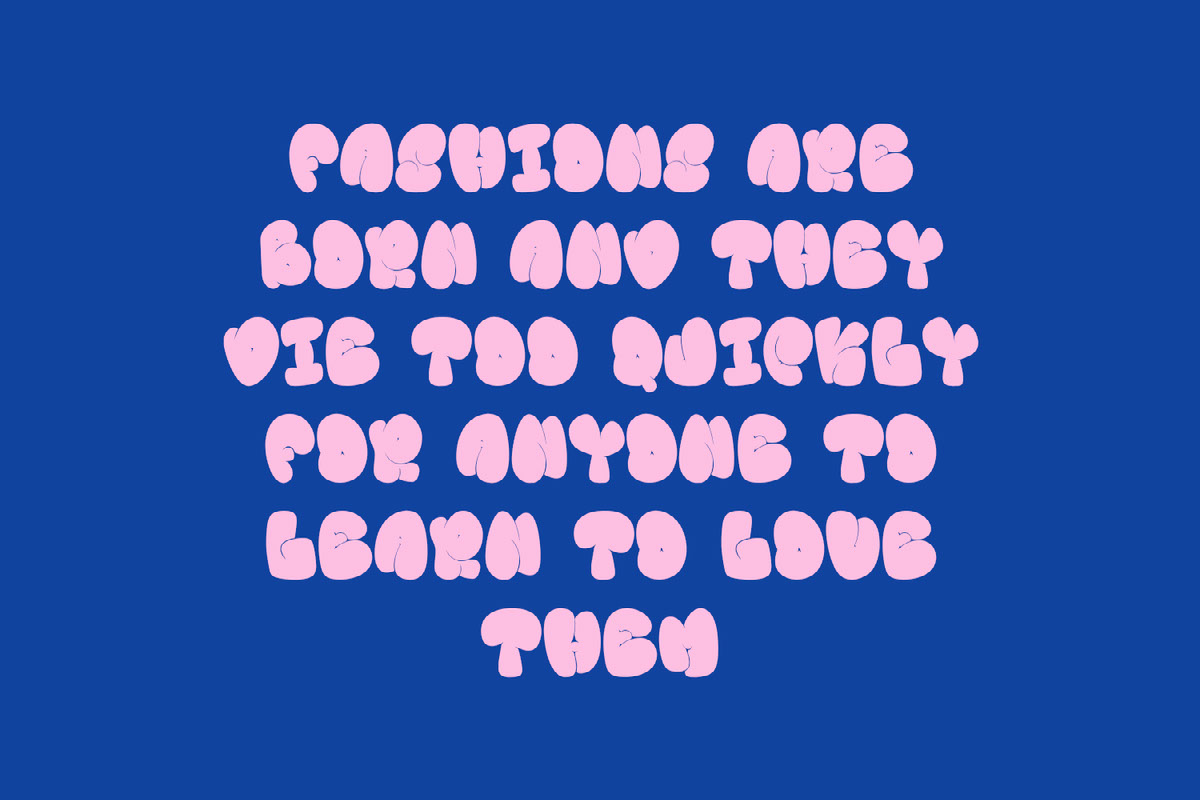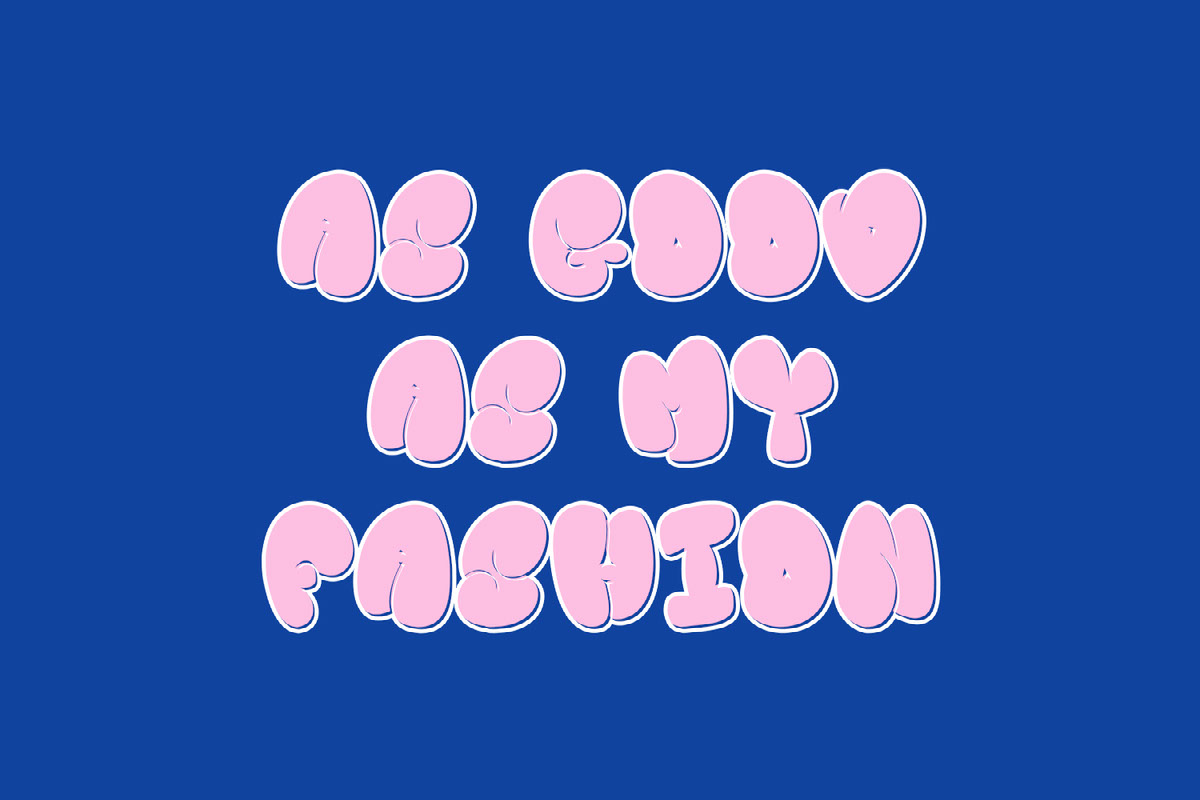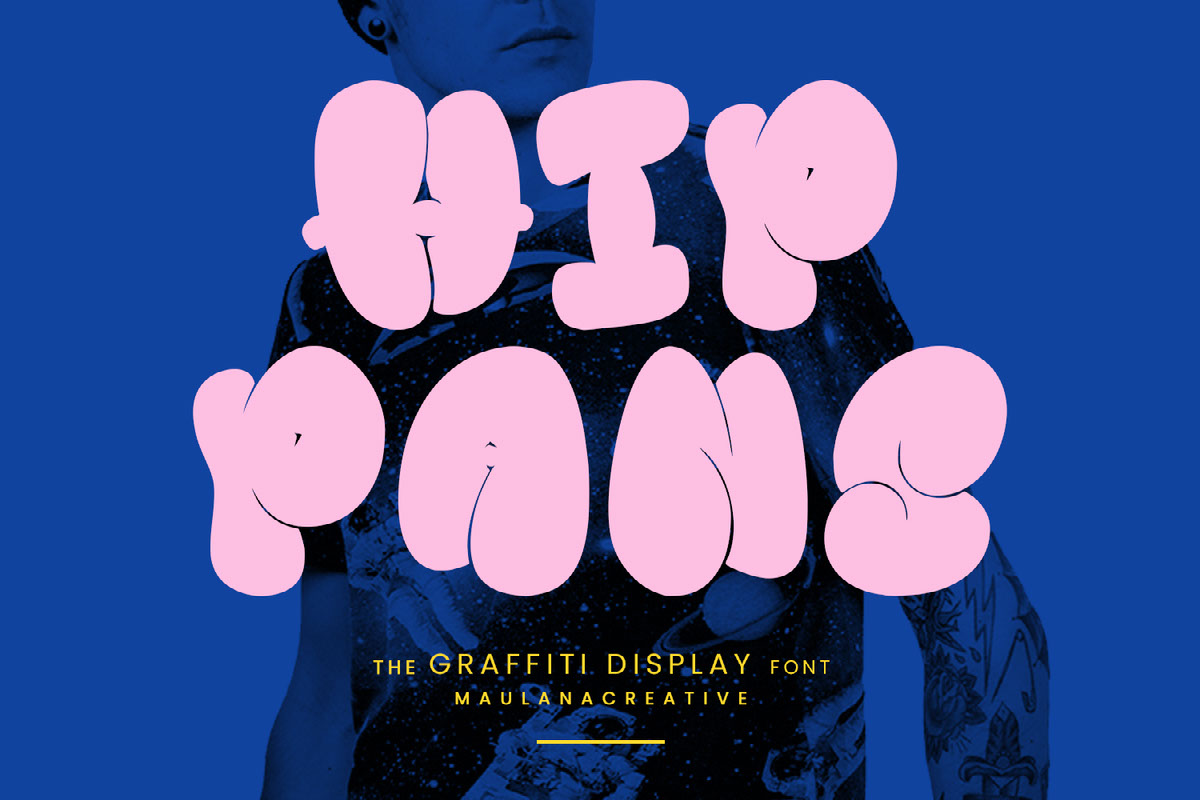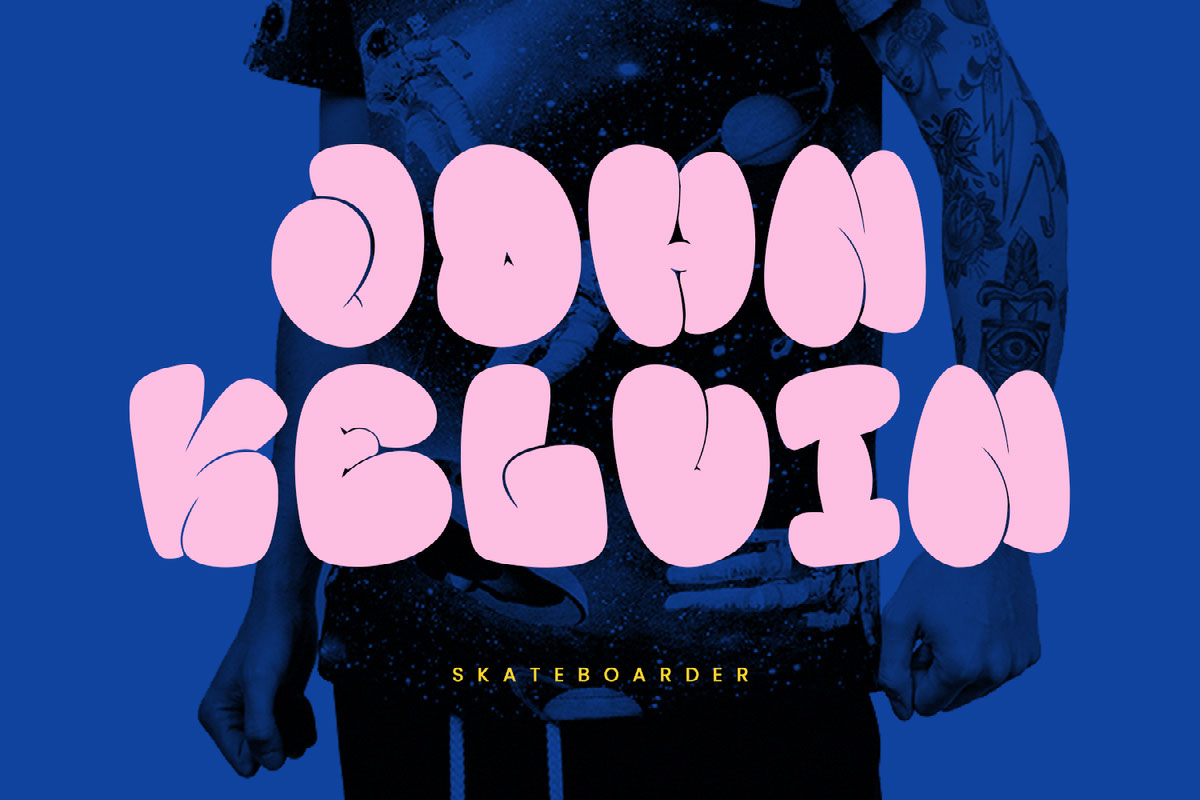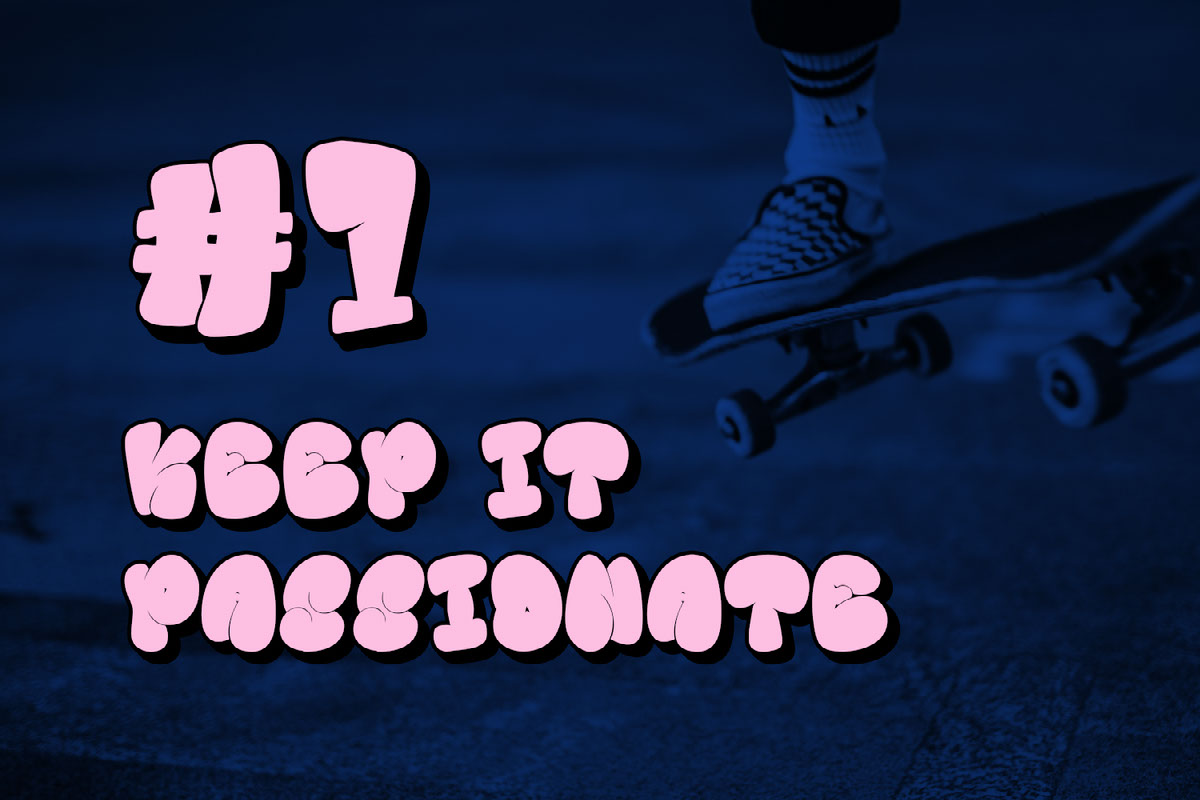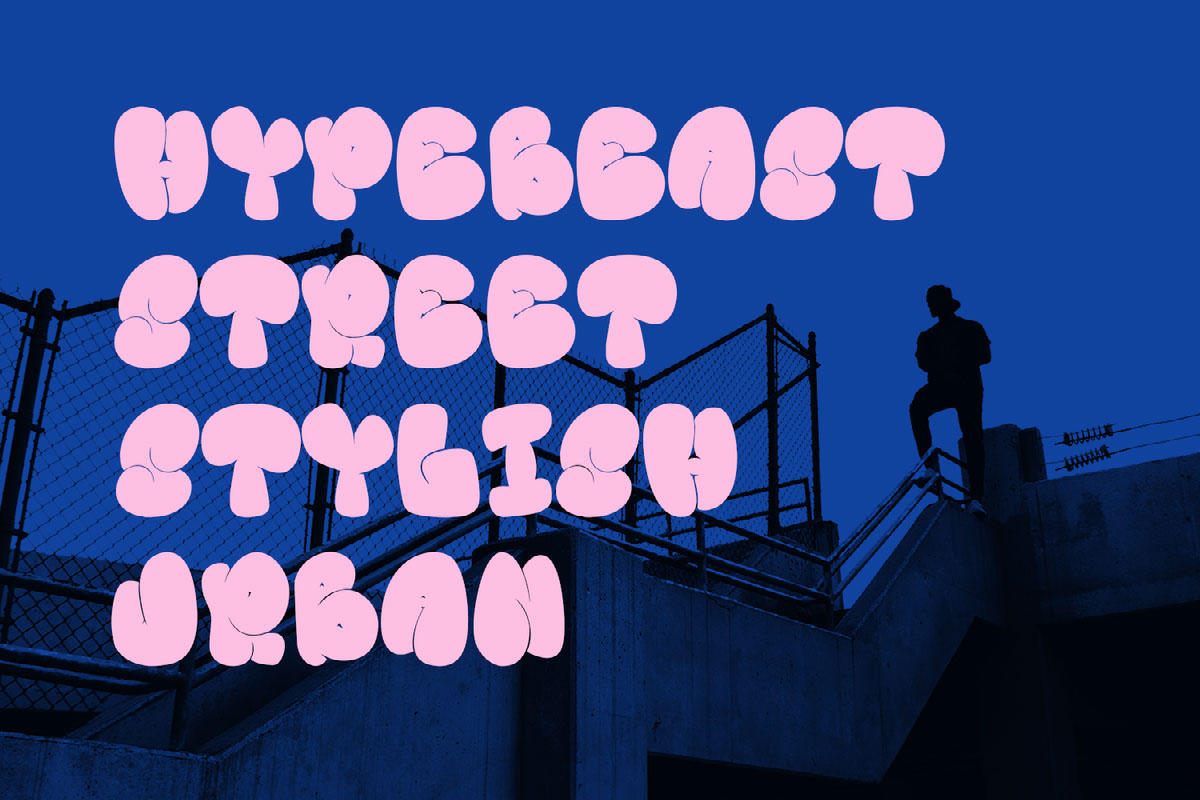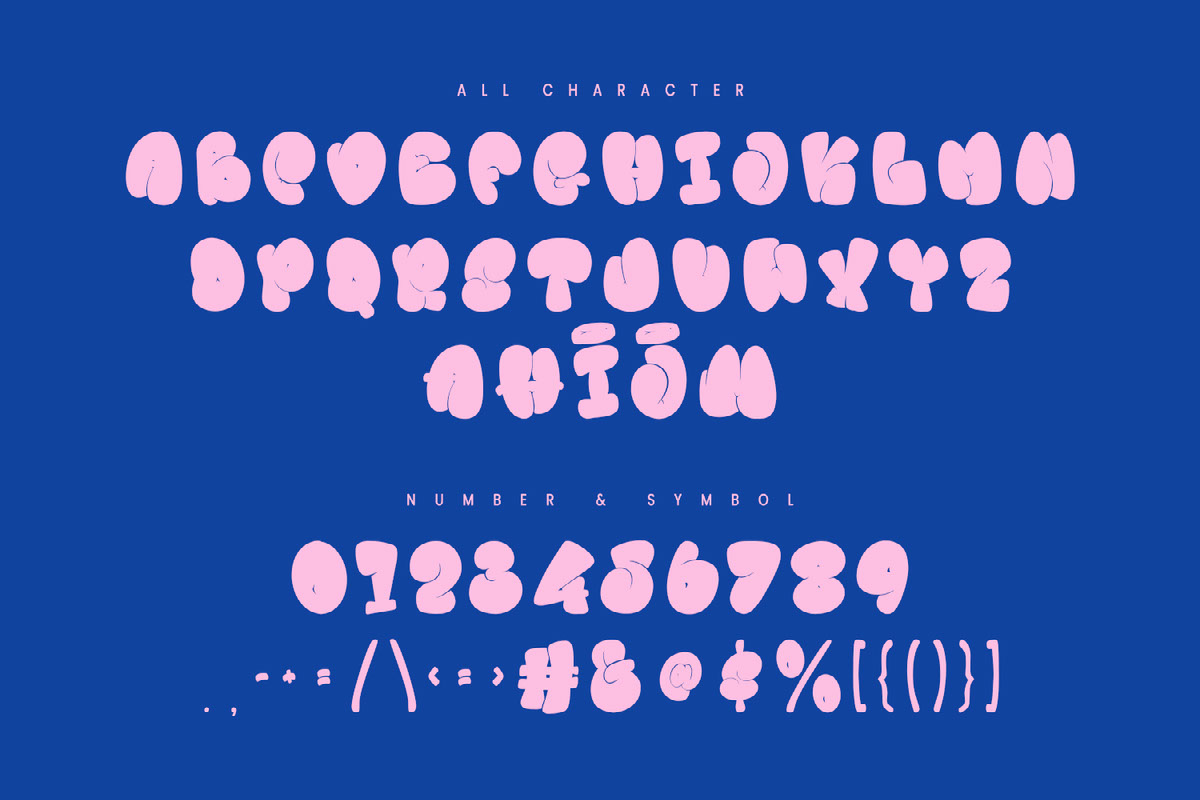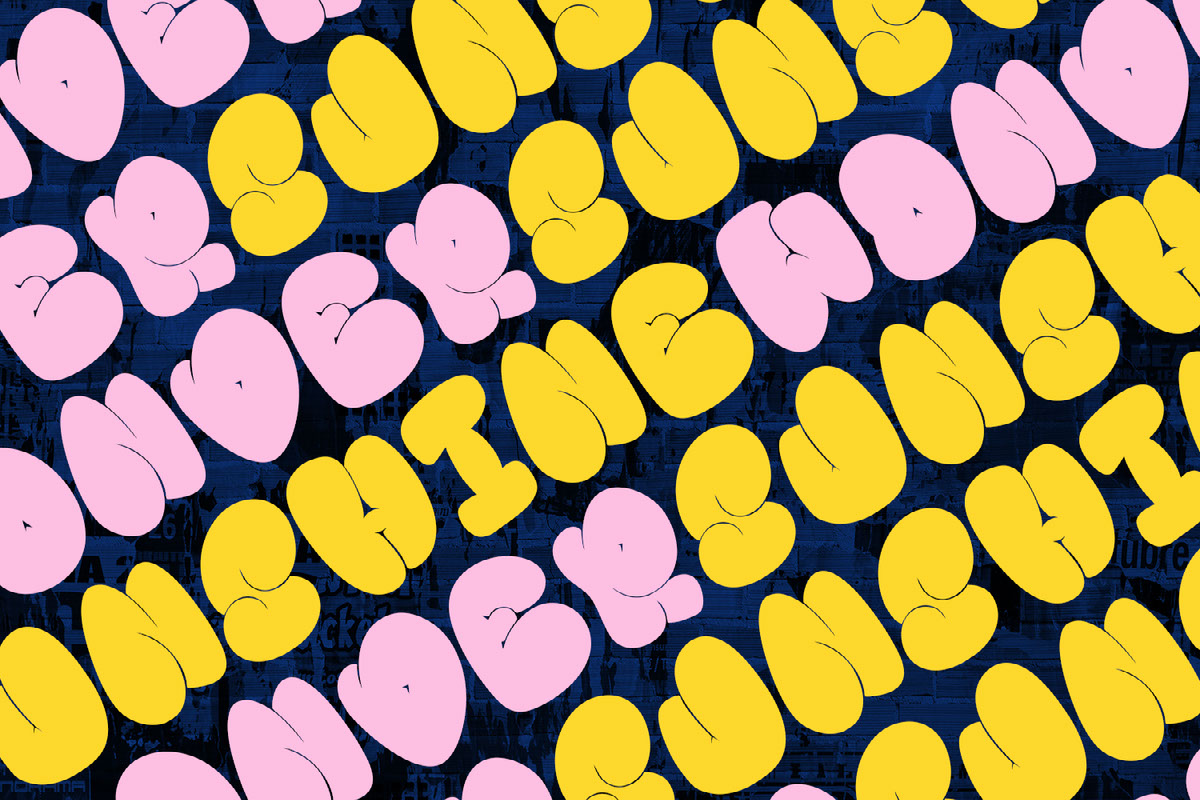
Hippans graffiti display font. With bold stroke, fun character with alternates. To give you an extra creative work. Hippans graffiti display font support multilingual language. This font is good for logo design, Social media, Movie Titles, Books Titles, a short text even a long text letter and good for your secondary text font with script or serif. Make a stunning work with Hippans graffiti display font.